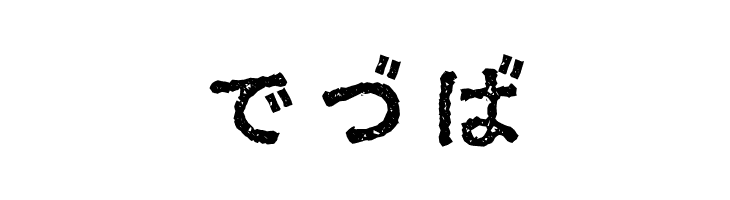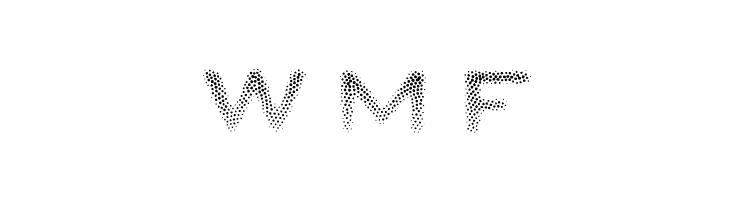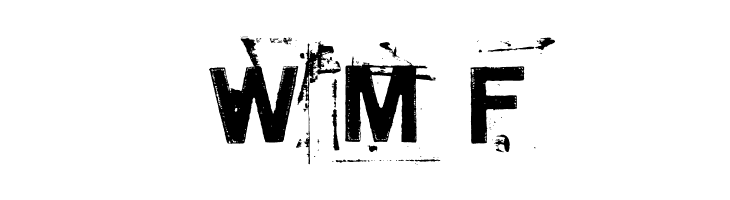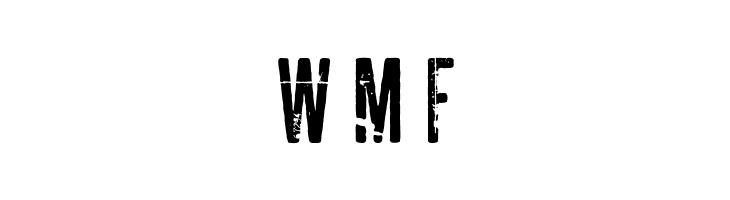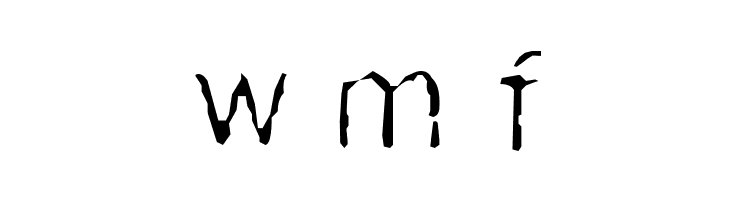
A textured, playful font with a chalk-like appearance.
A textured, hand-drawn font with a playful, chalk-like appearance.
A bold, expressive handwritten font with a rough, textured style.
A grungy, hand-drawn font with a textured, sketch-like appearance.
A bold, textured font with a hand-drawn, artistic style.
A bold, brush-style font with expressive, textured strokes.
A bold, hand-drawn font with a textured, artistic style.
A distressed, textured font with a vintage, grunge style.
A bold, textured font with a hand-drawn, calligraphic style.
A modern, dotted font with a textured and digital appearance.
A playful, textured display font with unique patterns in each letter.
A dynamic, wave-inspired font with a textured, flowing design.